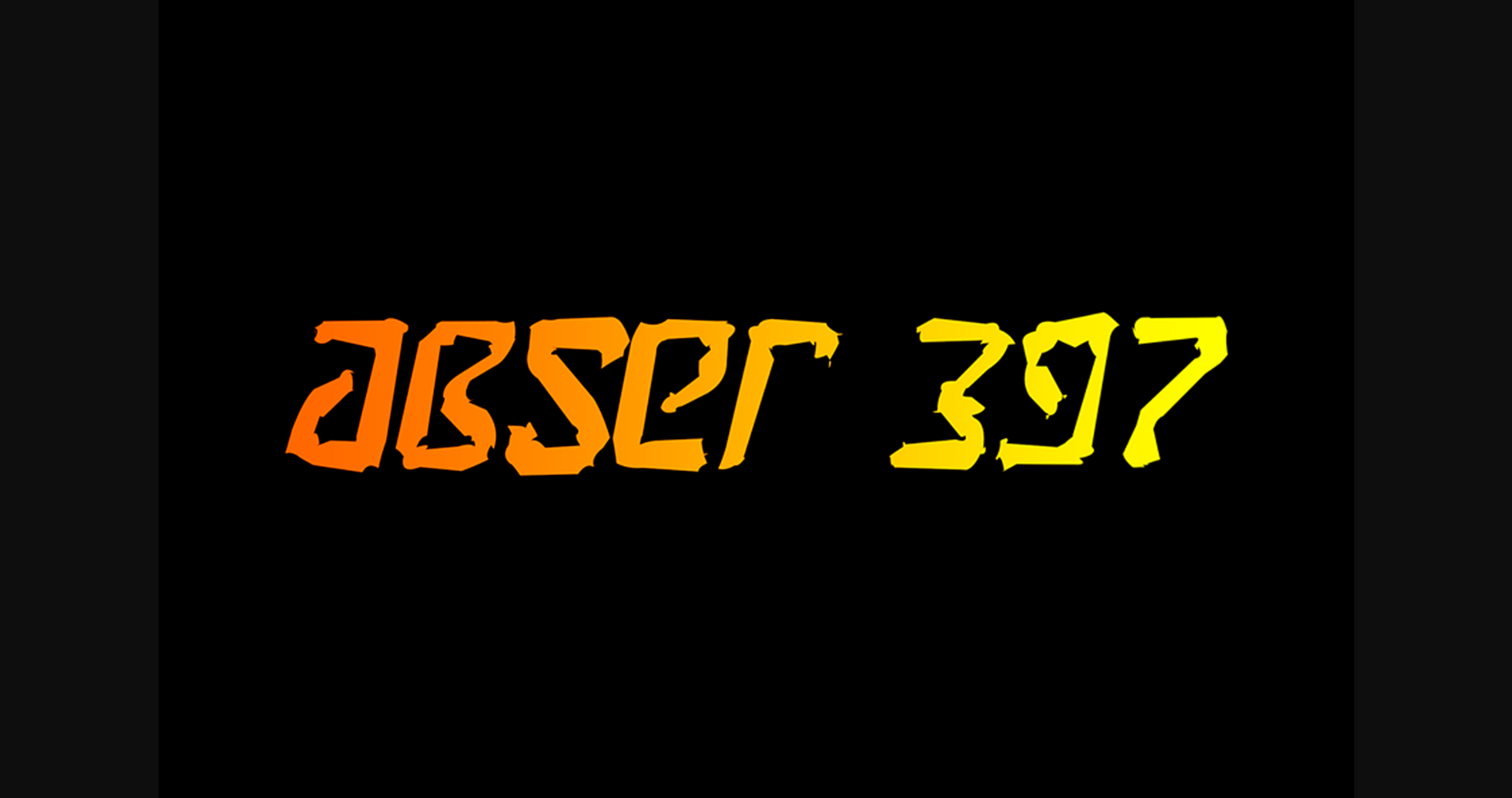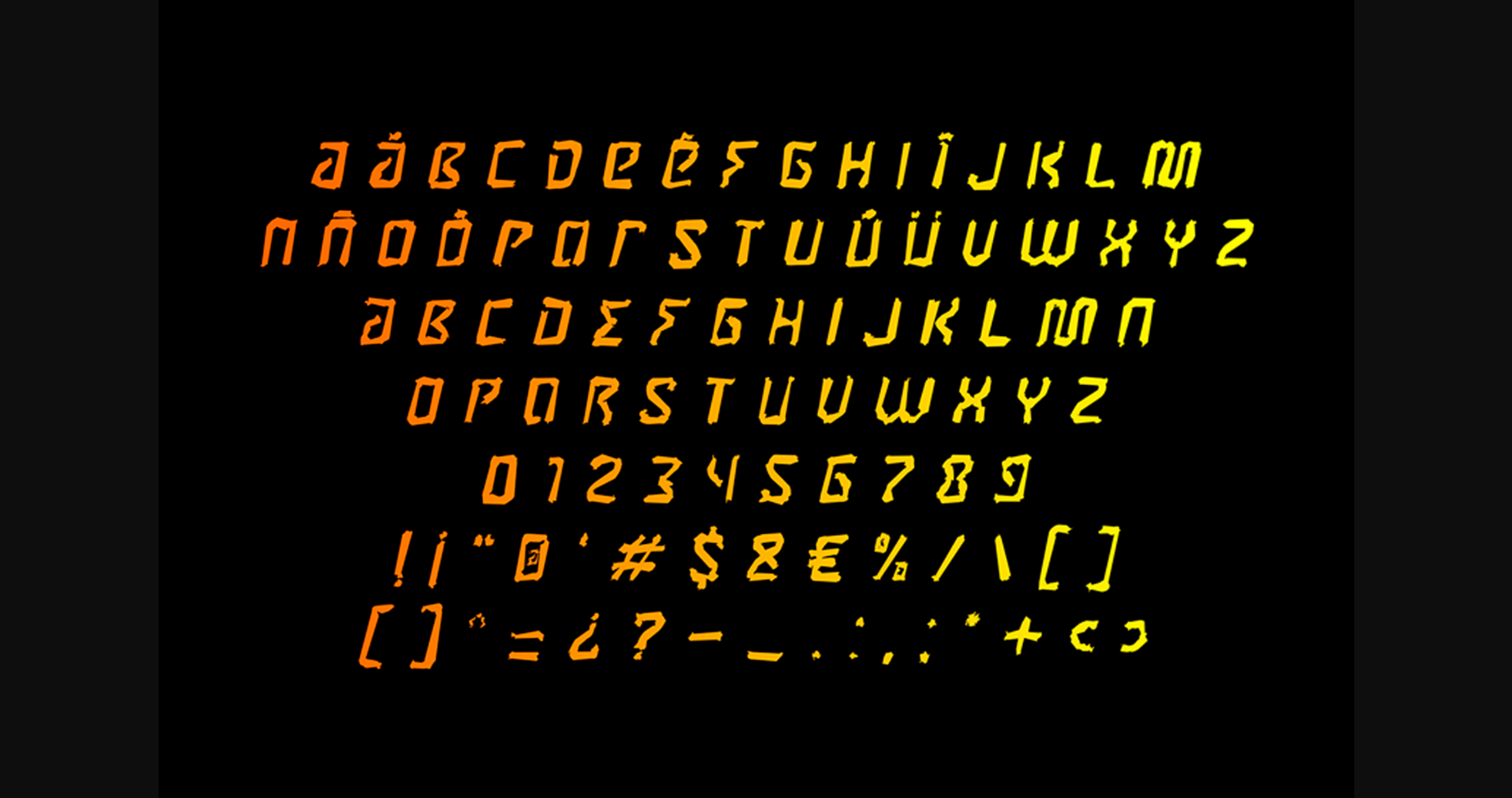
About Abser – 397 Font
Abser – 397 is a strange and whimsical sans-serif font that looks like it’s straight out of a creepy circus. With exaggerated writing calligraphy, quirky angles, and offbeat details, it’s perfect for designs that need a touch of the bizarre. Use it for posters, book covers, or anything that needs to stand out from the crowd.